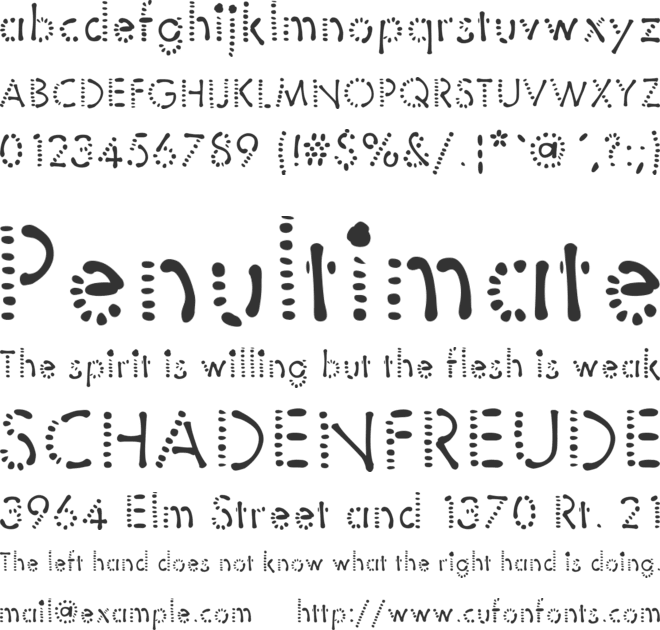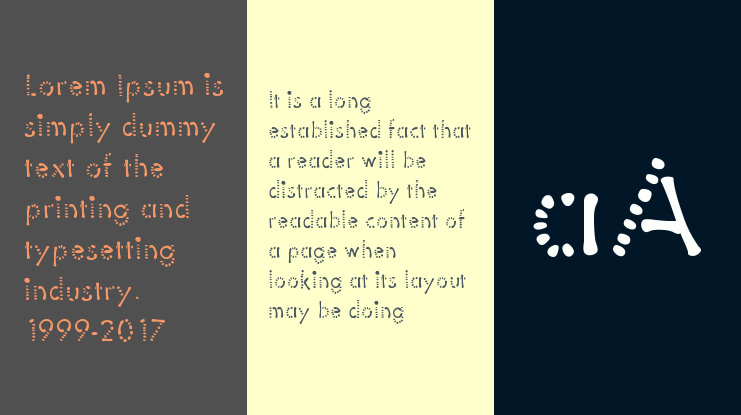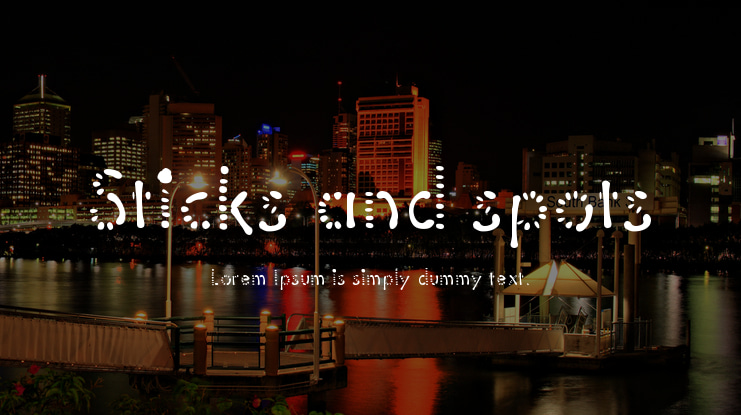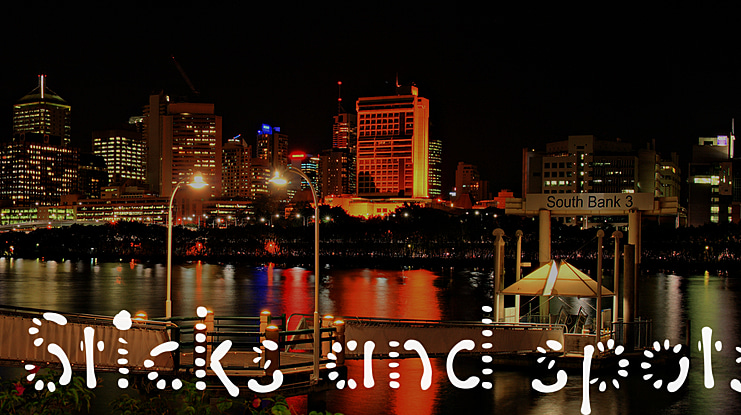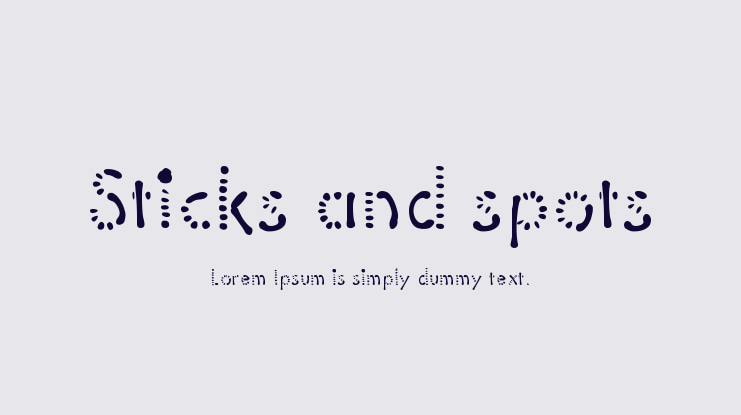
Sticks and spots Font
Sticks and Spots is a funny and challenging way to memorize the shapes of letters. It can be used to train for writing while connecting dots. Let me know how you'll use it!